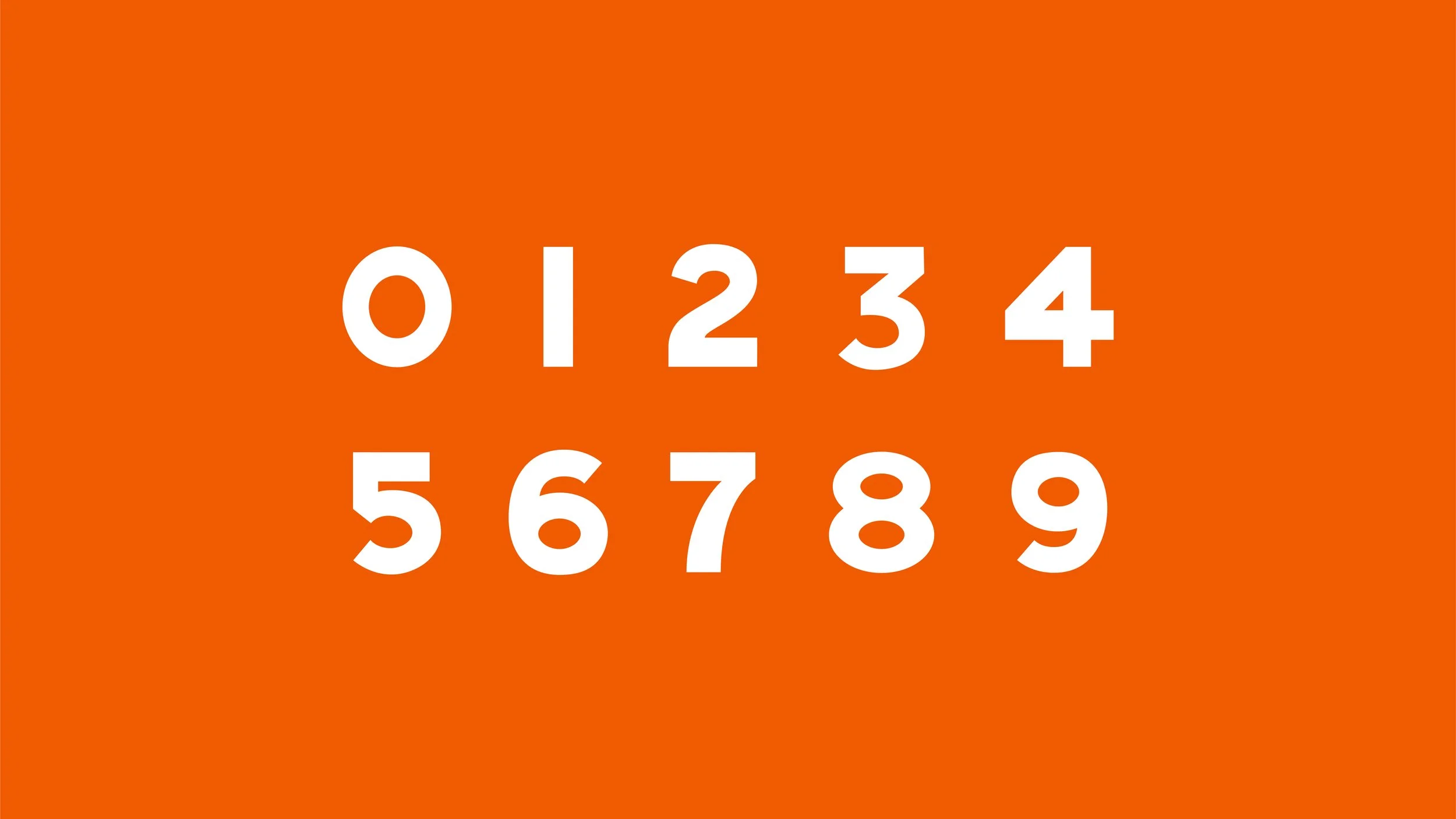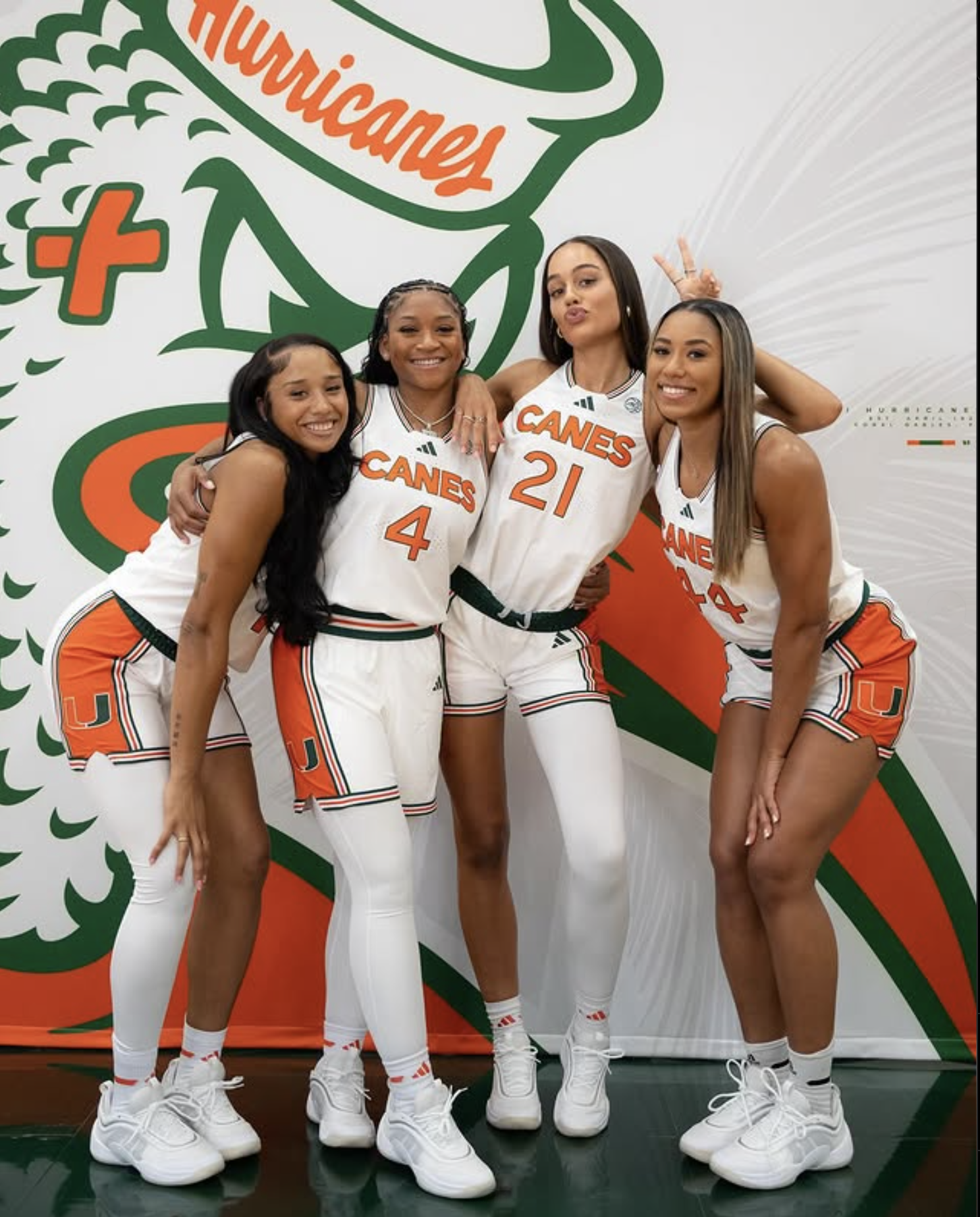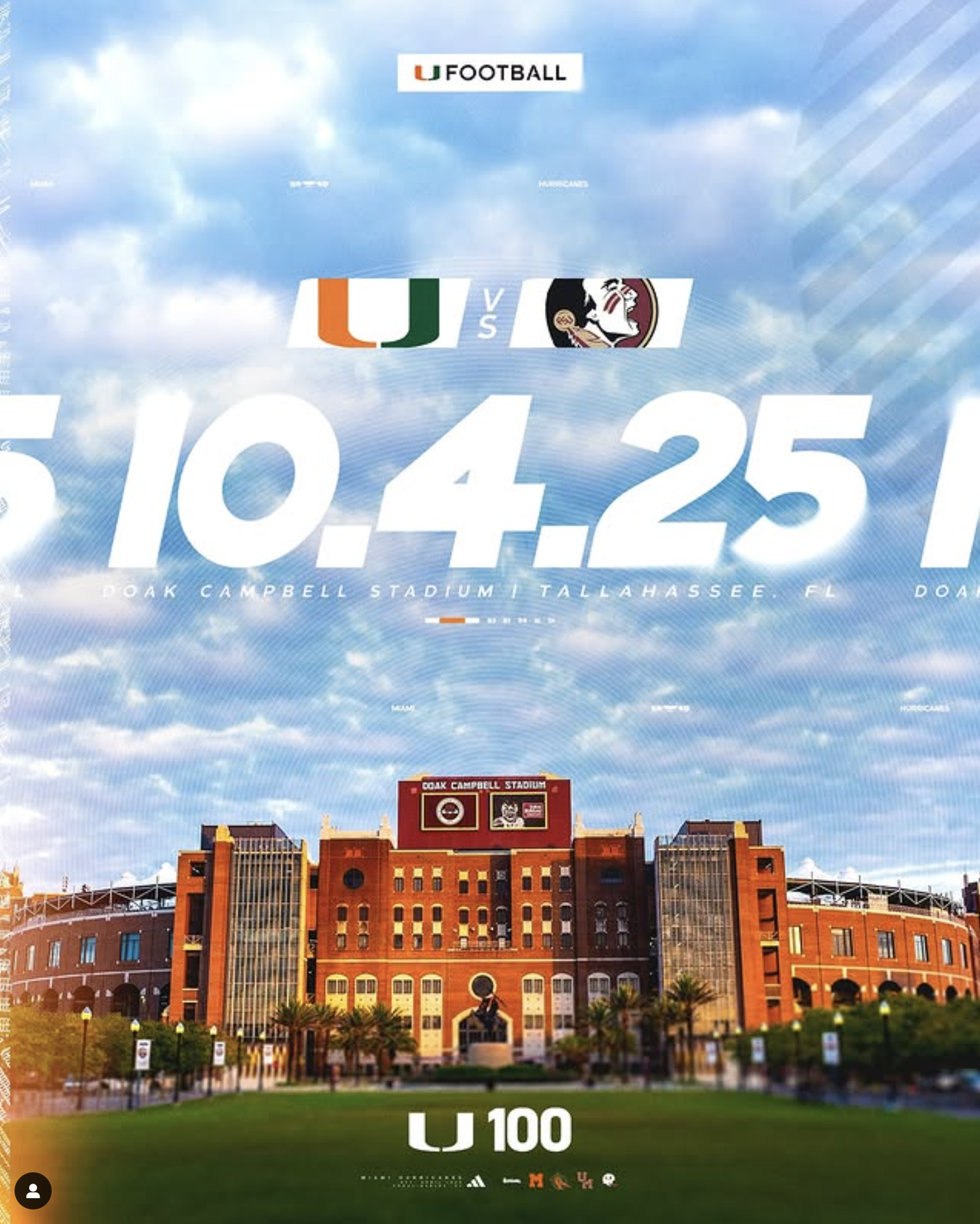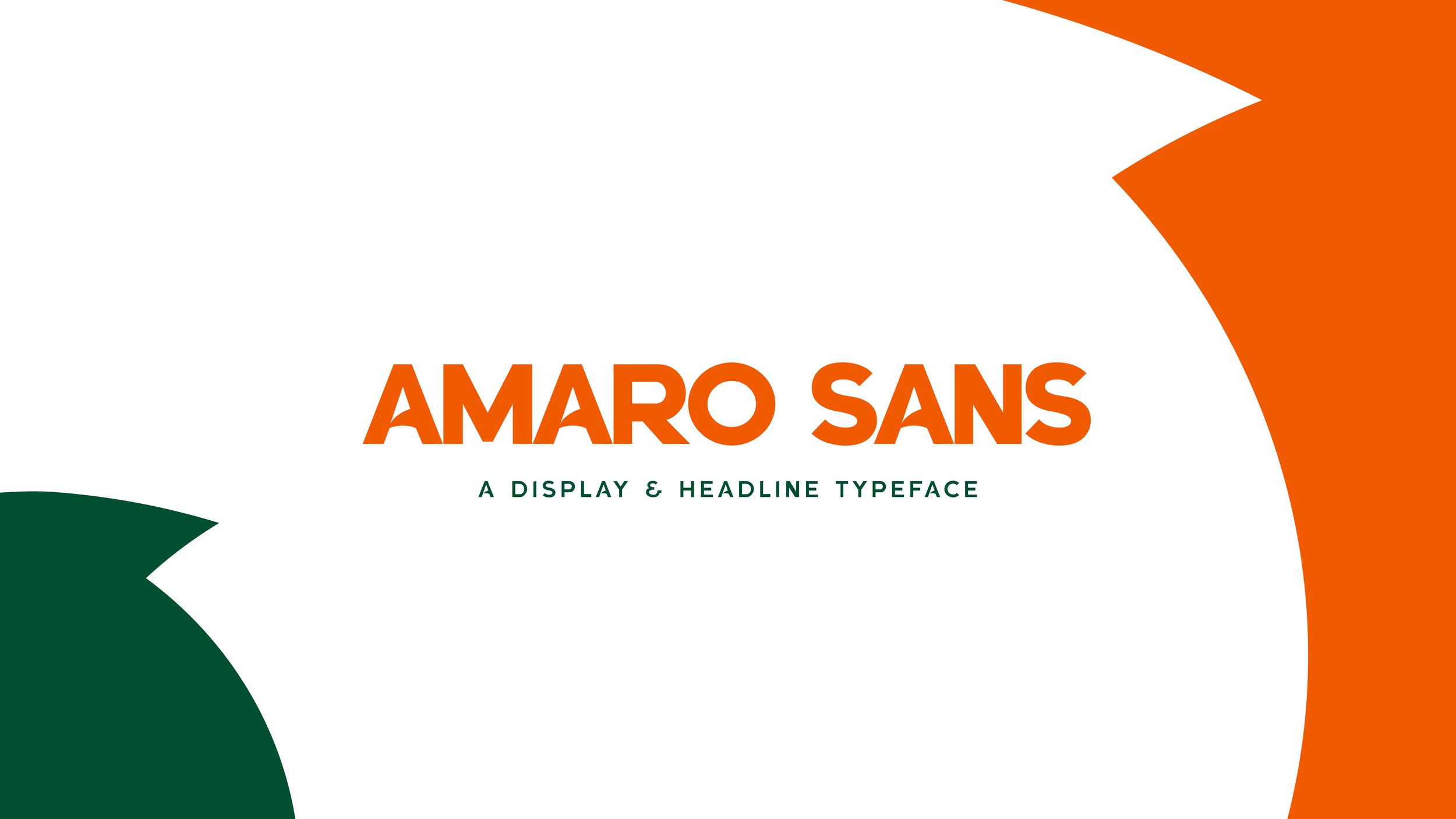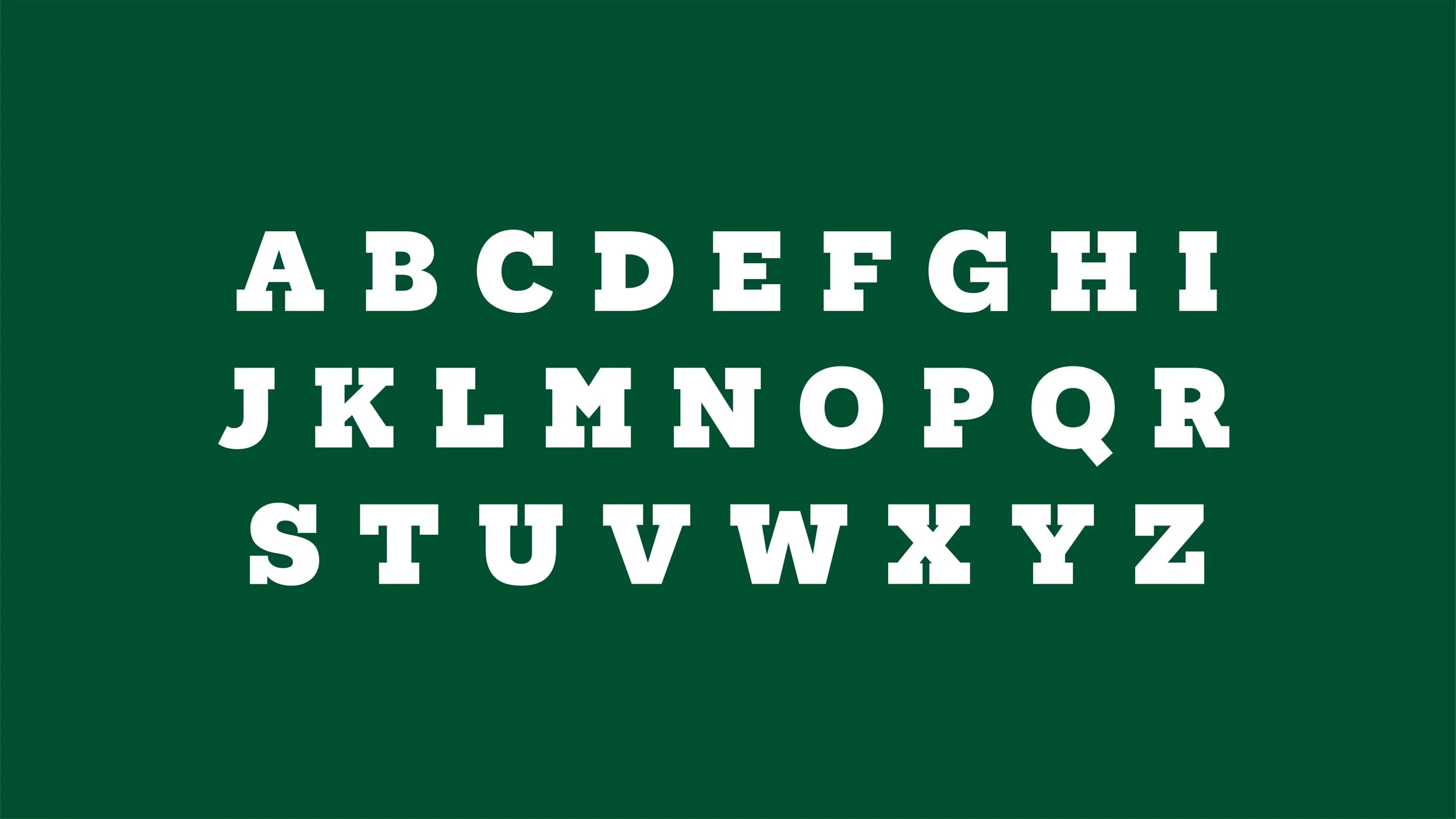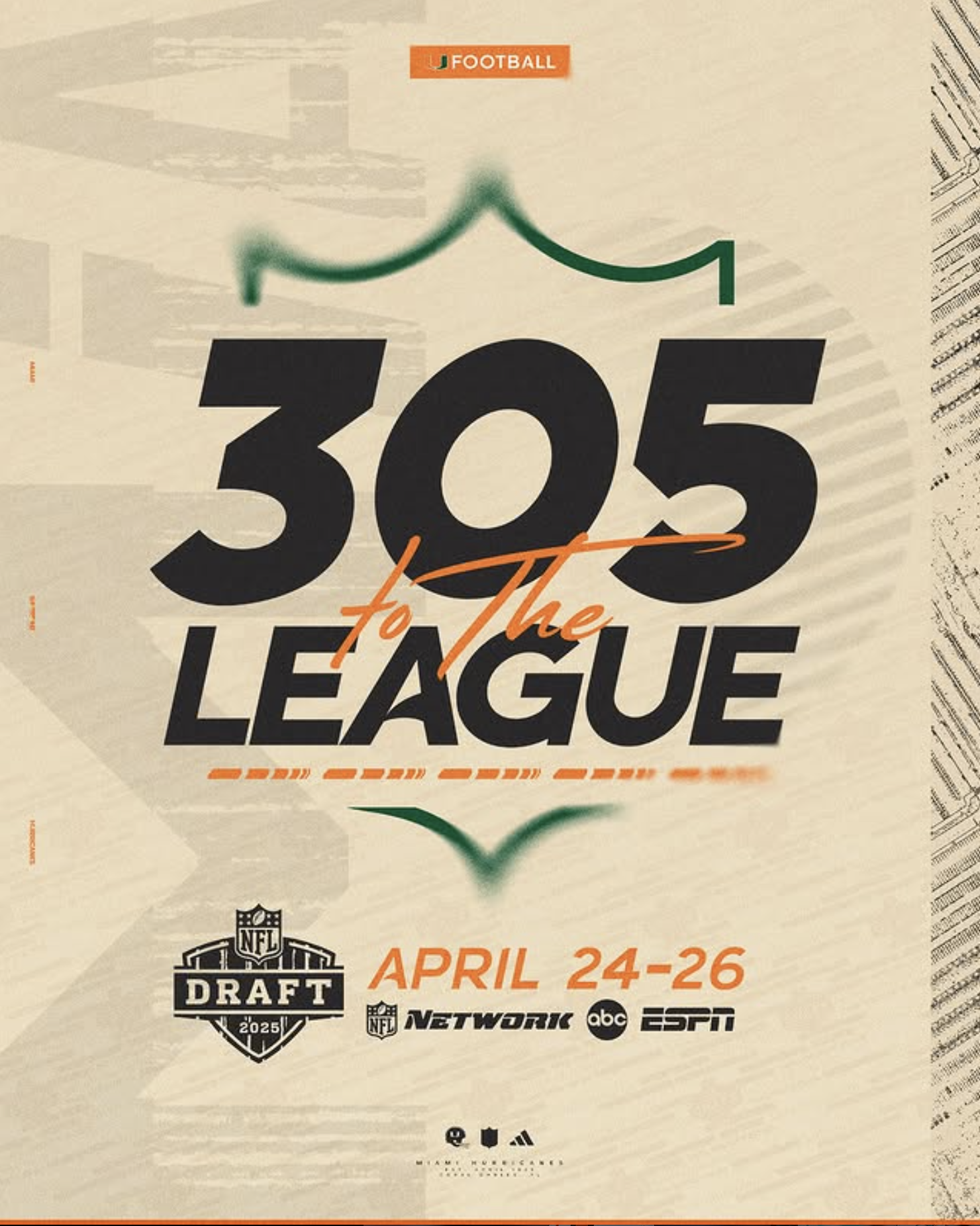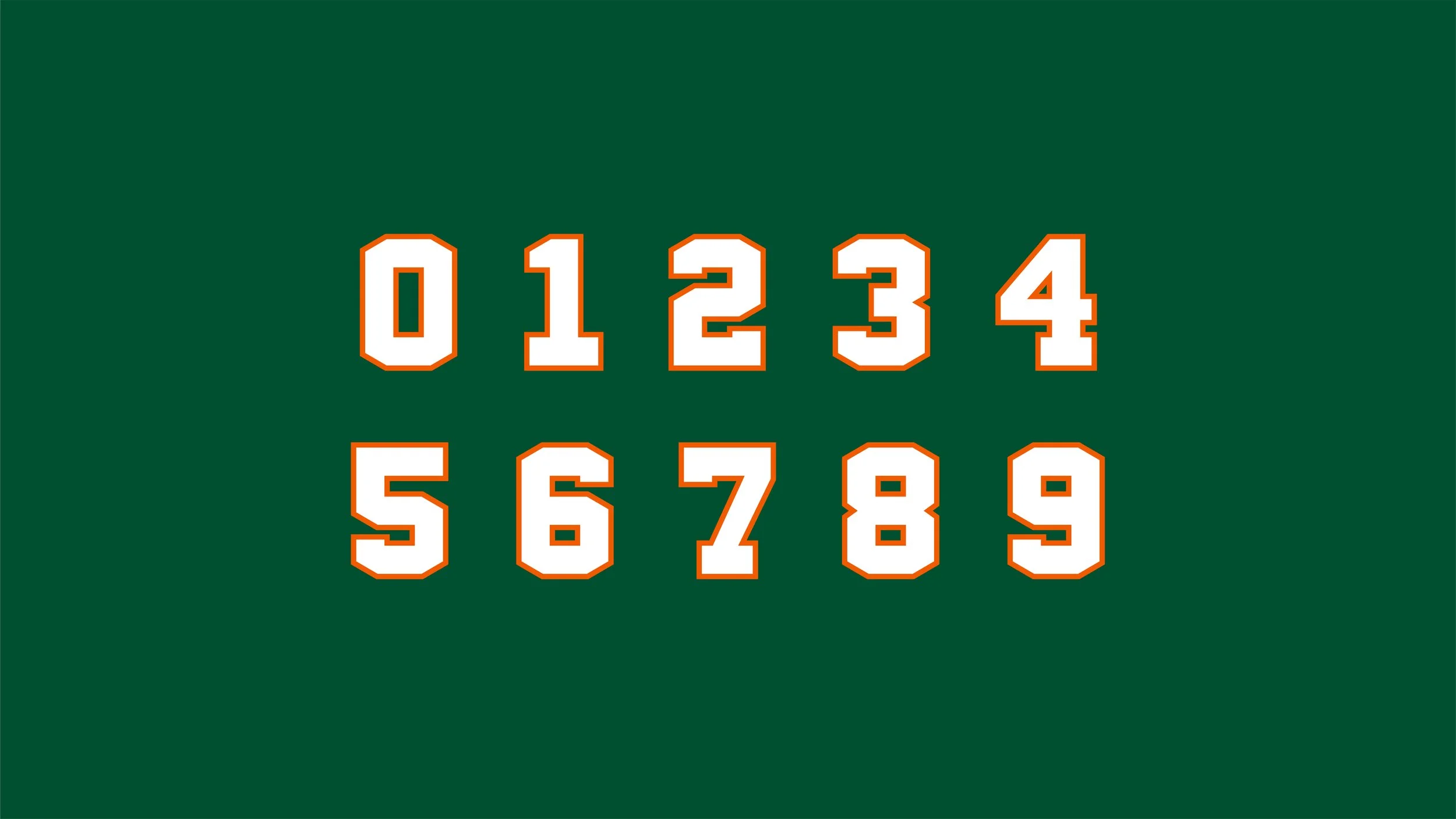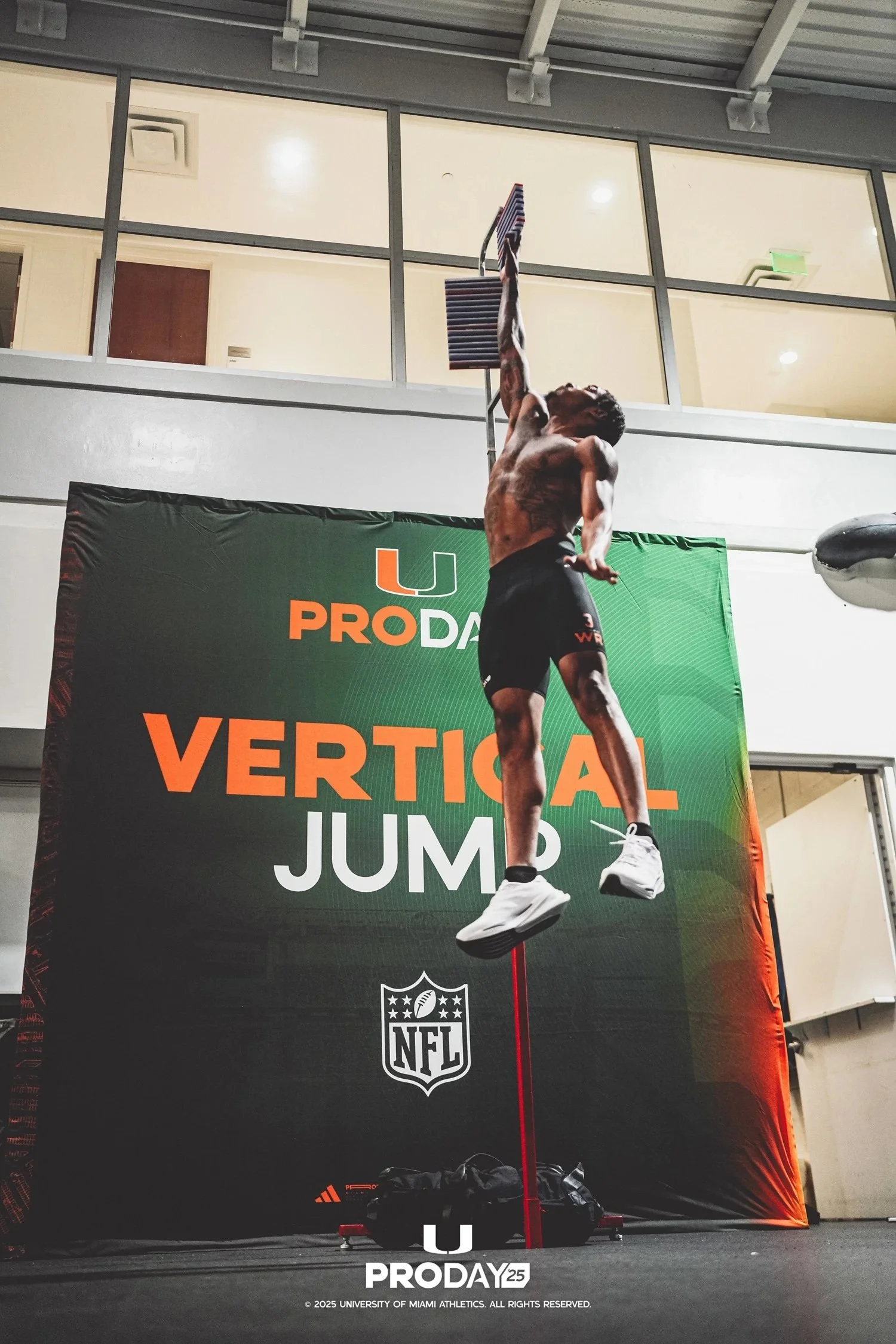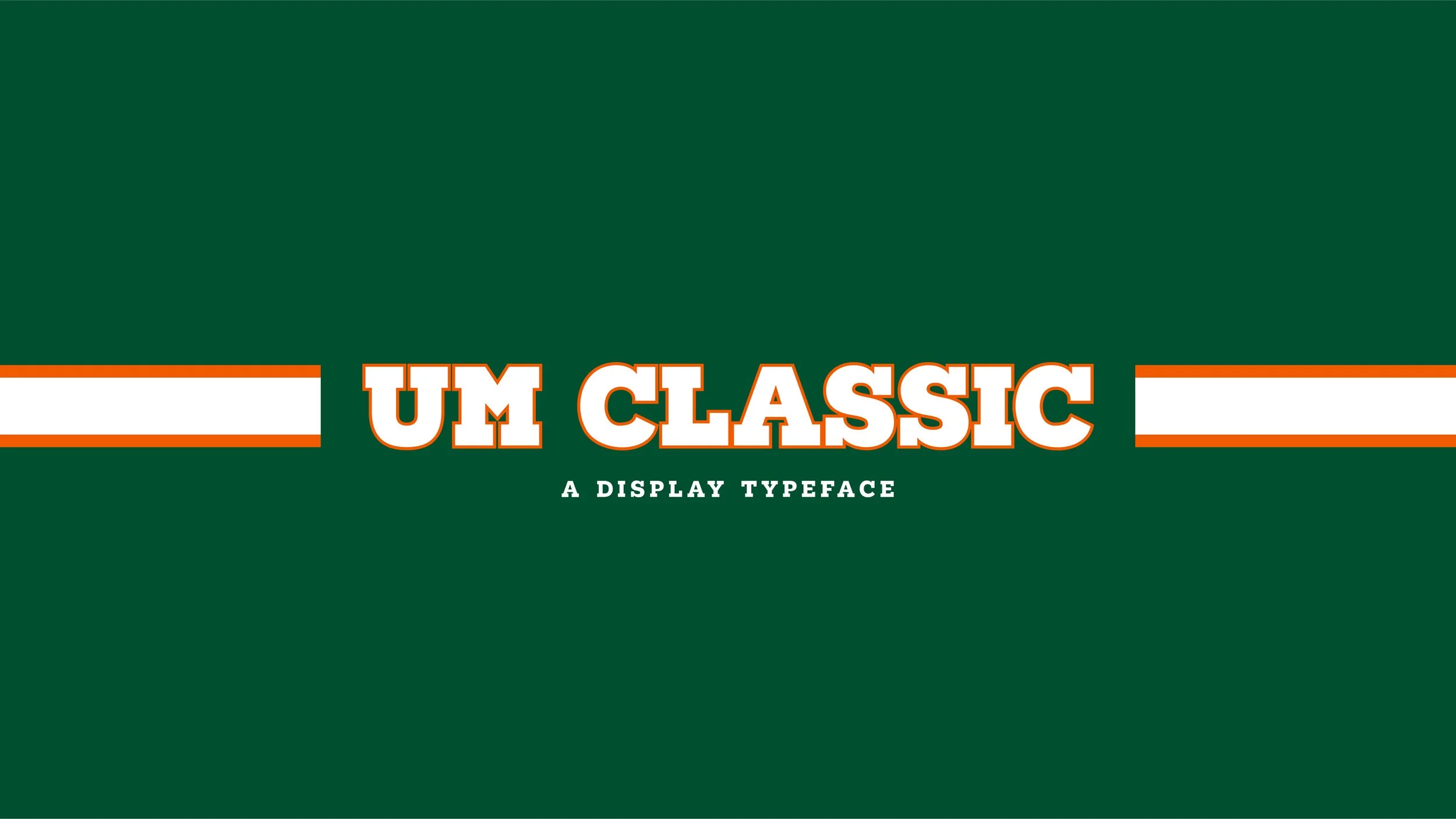
Amaro Sans is a new font family for the University of Miami Athletics Department.
Inspired by the very force of nature that is the University’s namesake. Made to disrupt - this typeface is clean, legible, and direct, with a little bit of flare. Amaro Sans is just as easily at home on a jersey, as it is in a stadium.
6 styles | +175 Glyphs
MINOR UPDATES TO A CLASSIC LOOK
Designed exclusively to appear on football jerseys. UM Classic embraces the Universities storied past and is a tribute to the swagger era of "The U." This typeface brings a classic look that harkens back to Miami’s glory days.
2 styles | +175 Glyphs